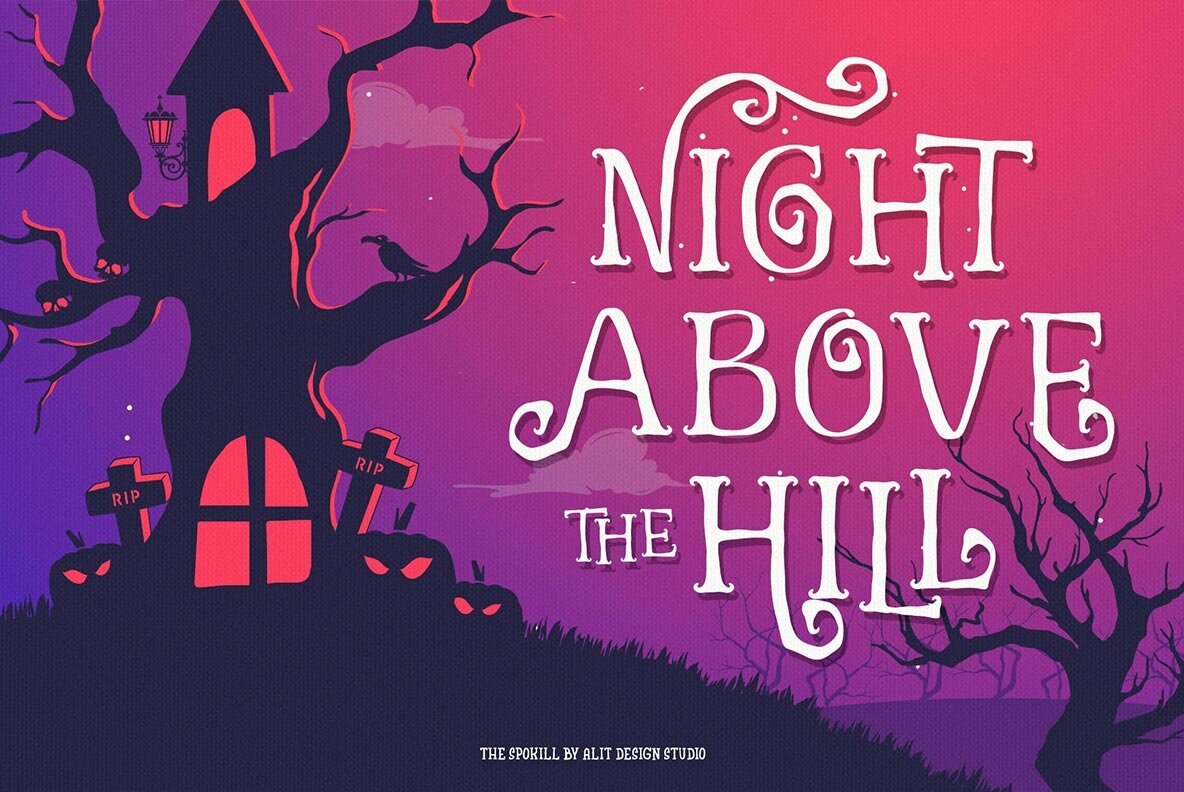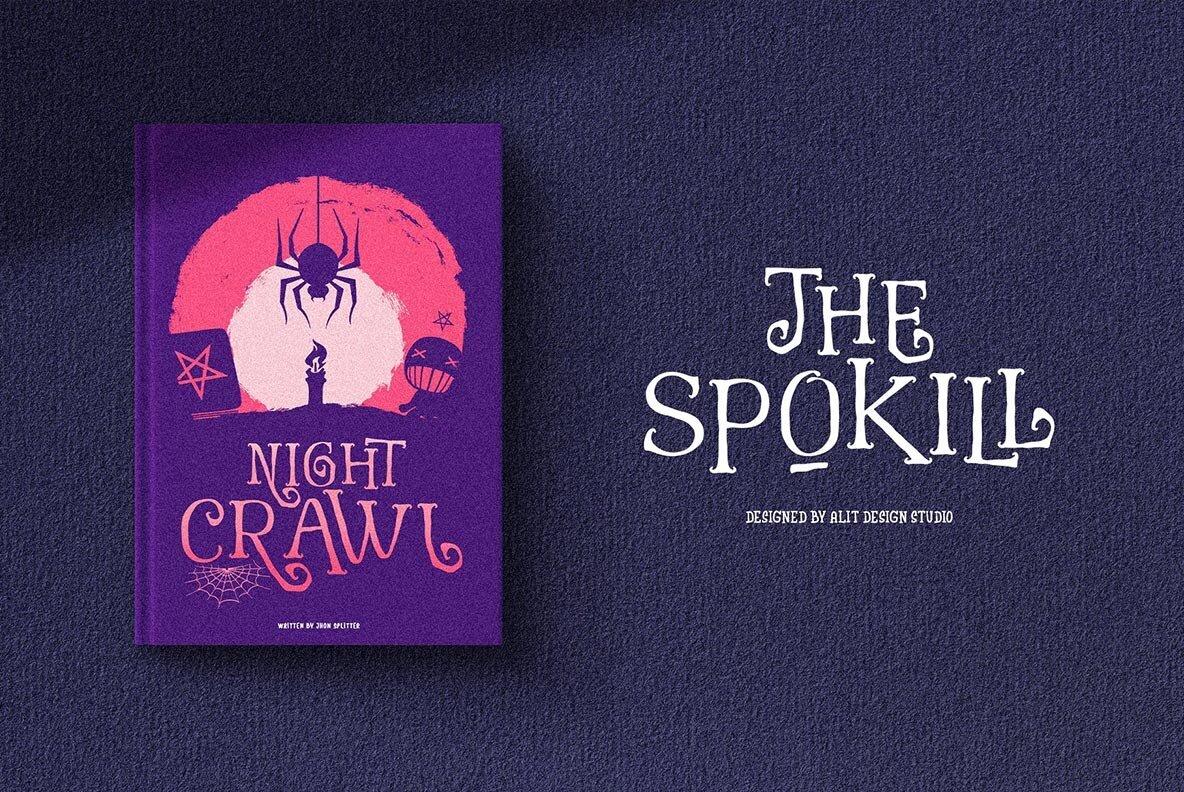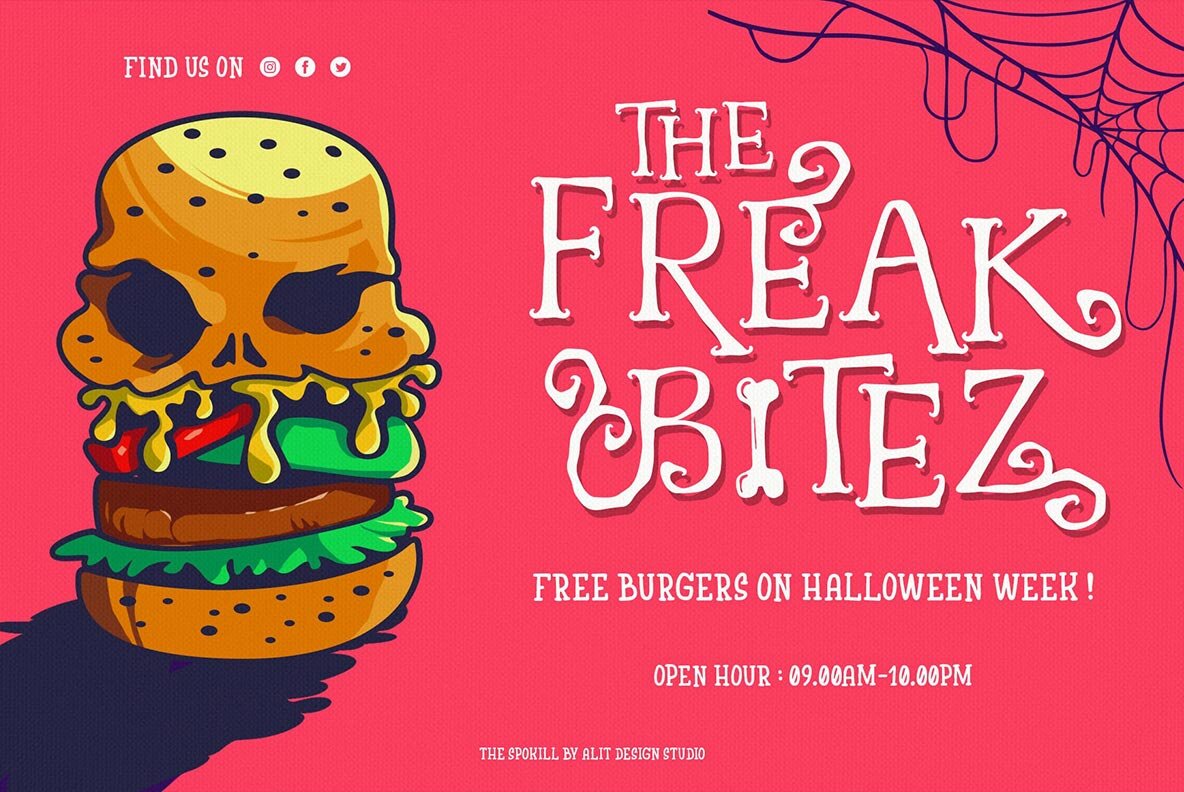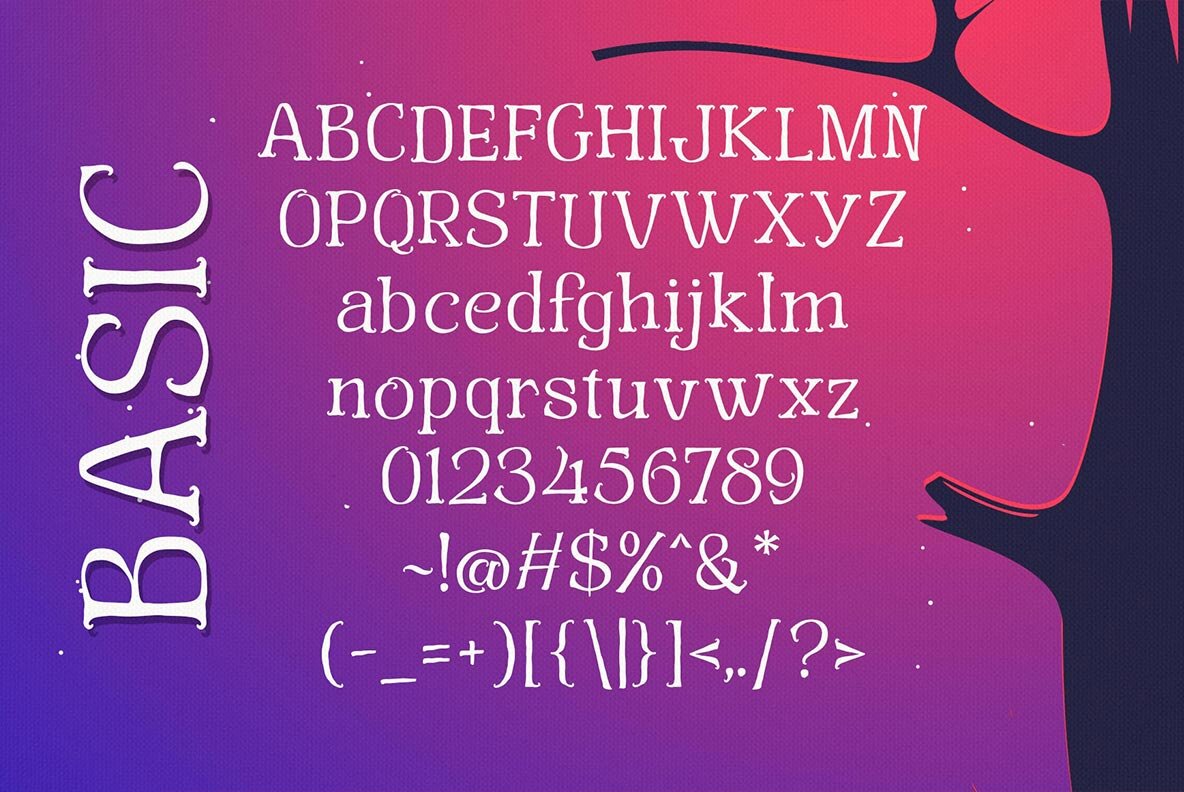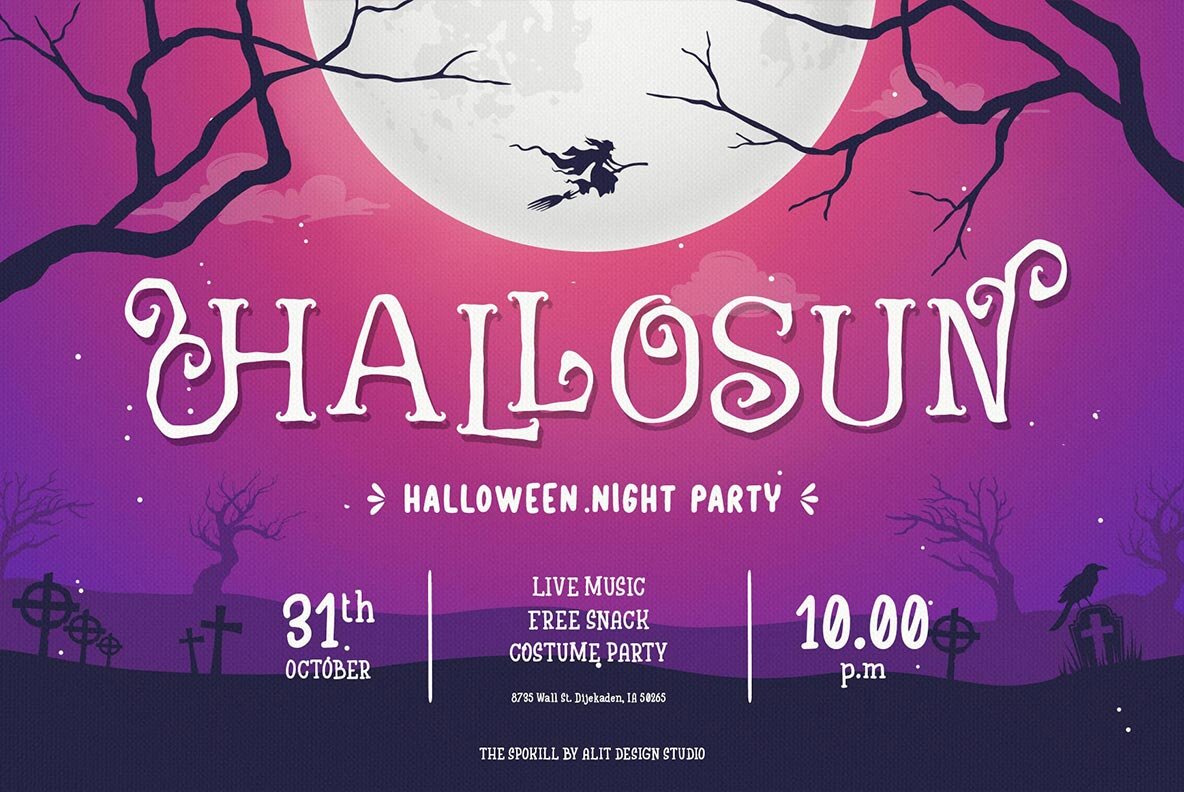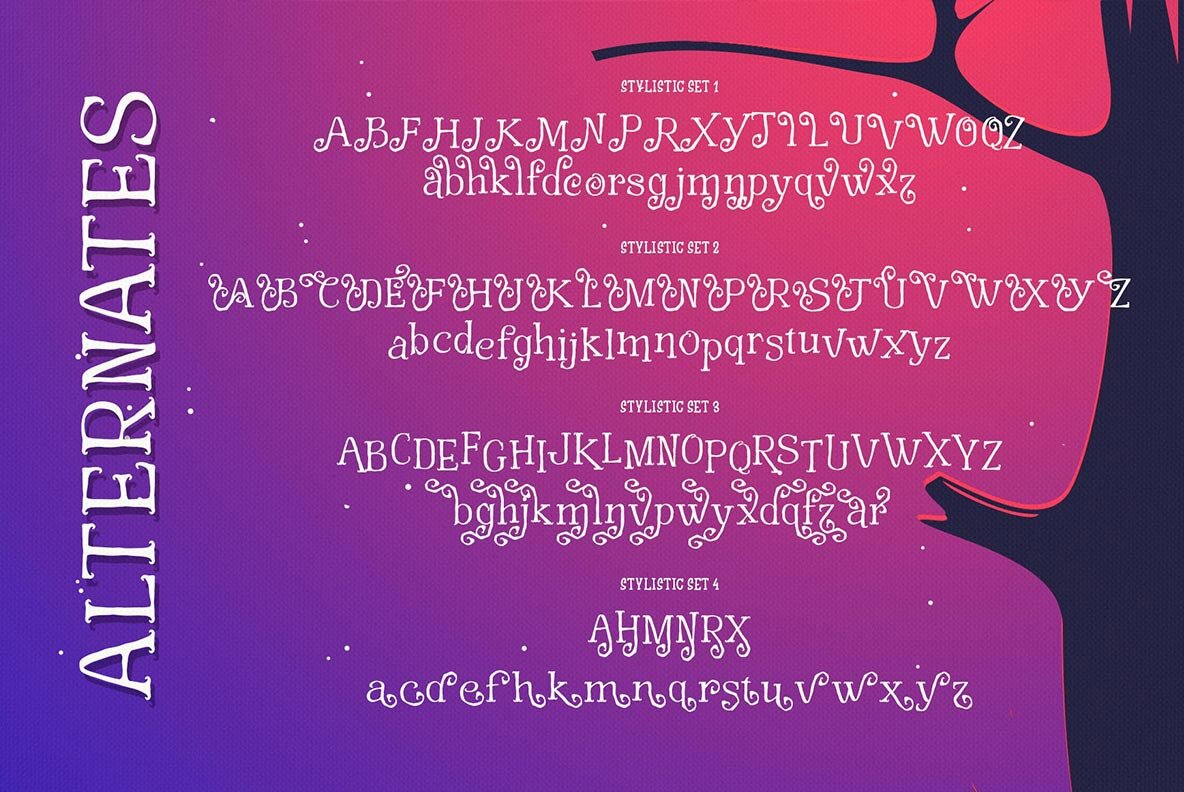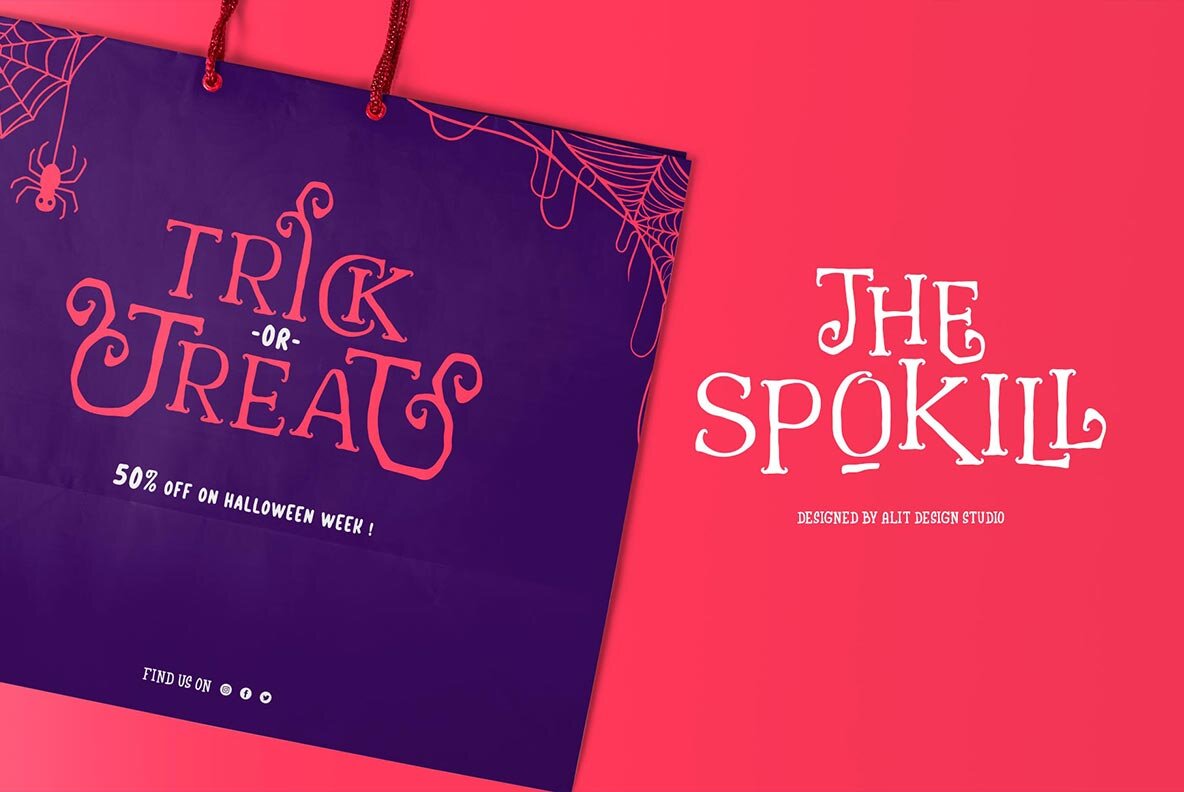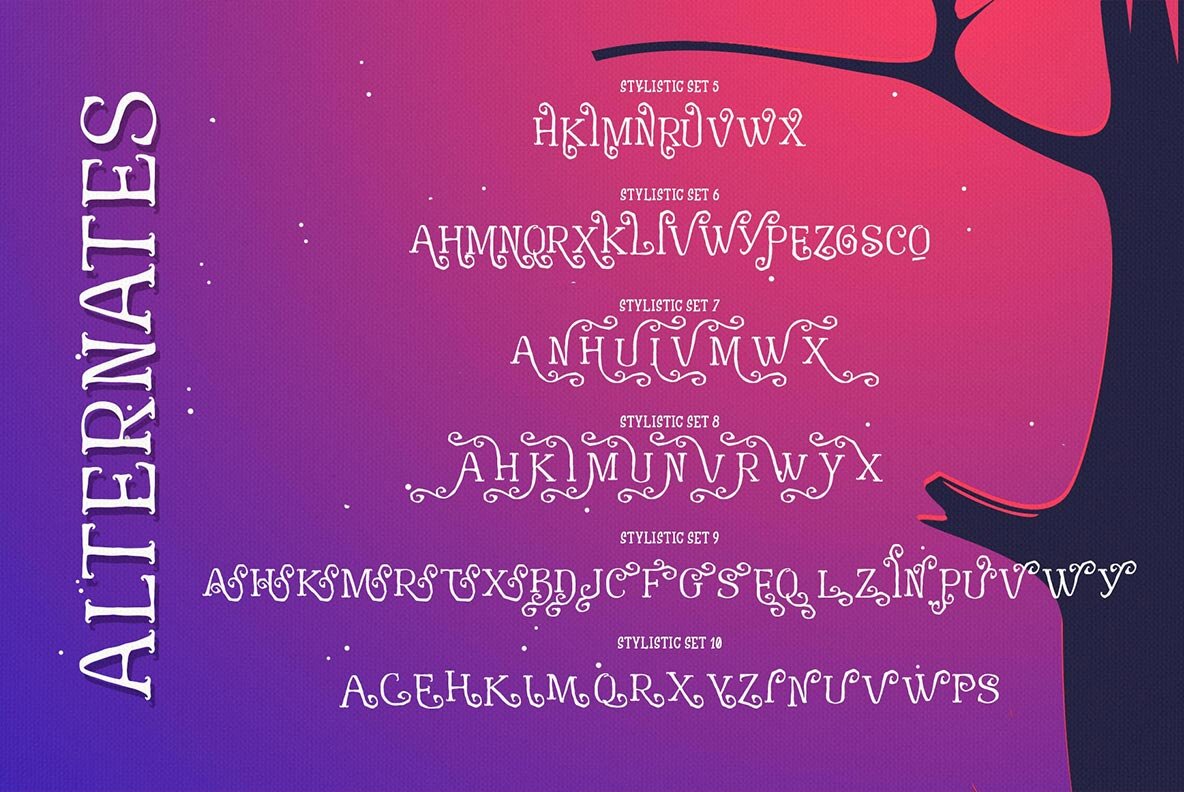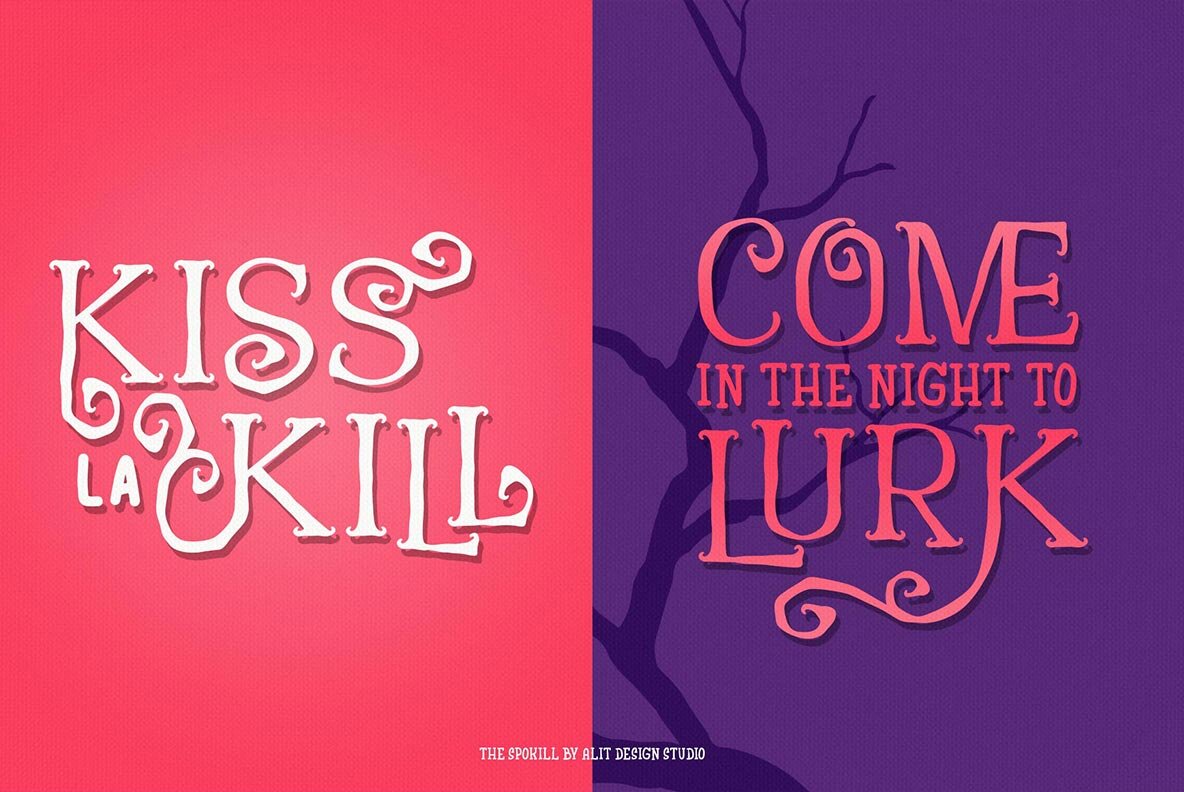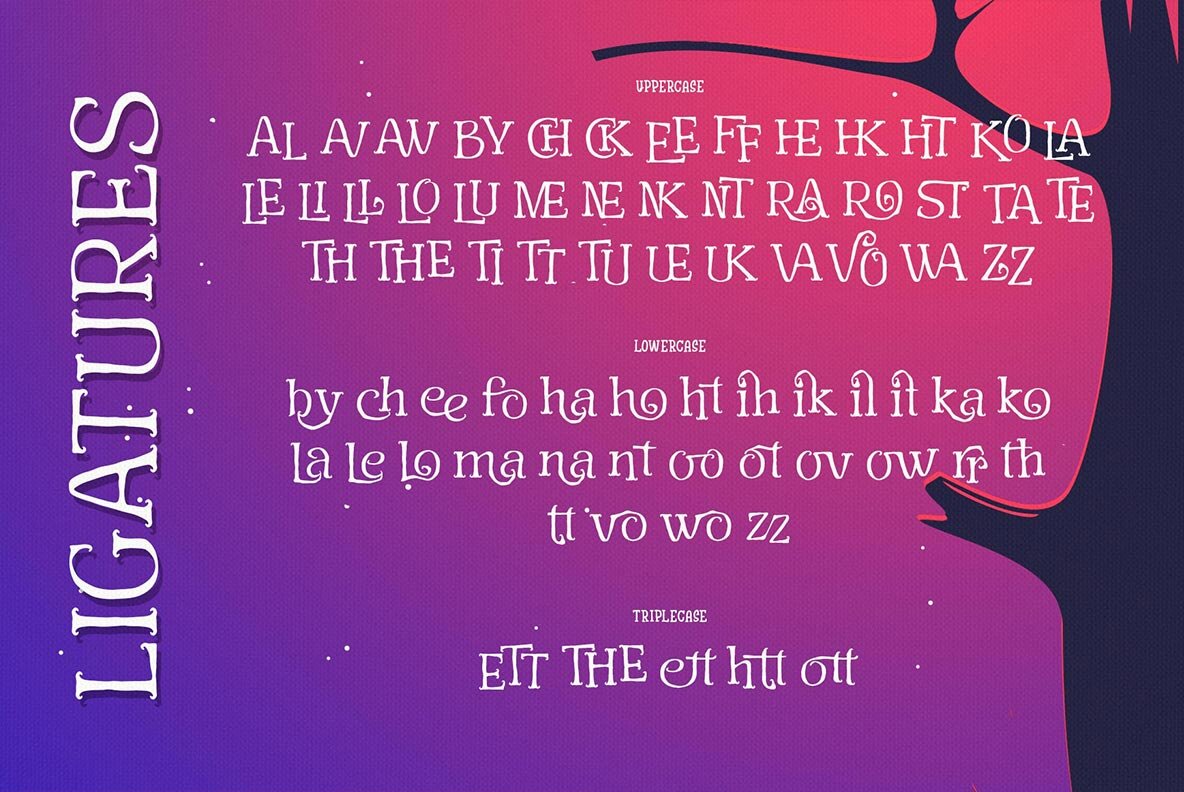
The Spokill Font
Designed with Halloween in mind, The Spokill typeface strikes the perfect balance between eerie and artistic. With each letter crafted to invoke a sense of mystery, it offers graphic designers a novel way to capture the essence of the season. Whether designing for a spooky invitation or adding a chilling touch to a promotional poster, The Spokill stands out as a distinctive choice.The Spokill: A Hauntingly Unique Typeface